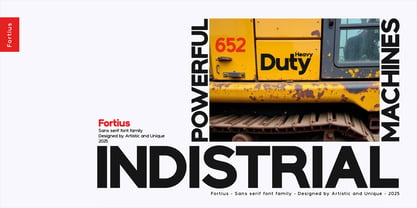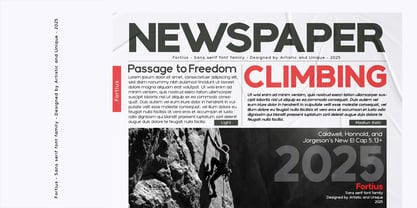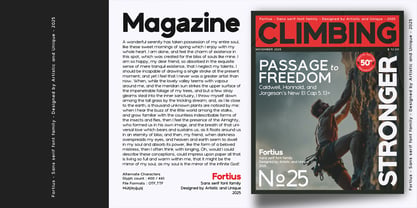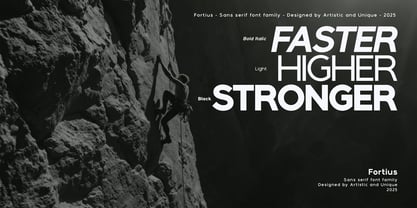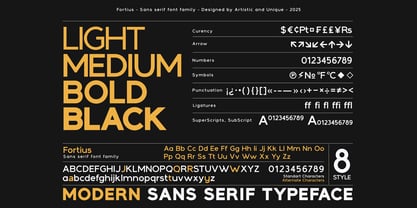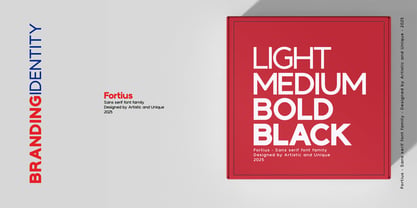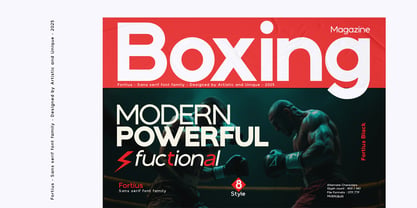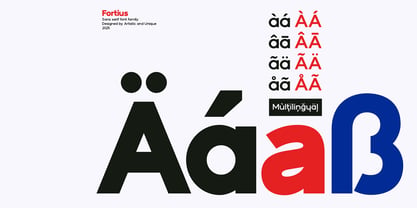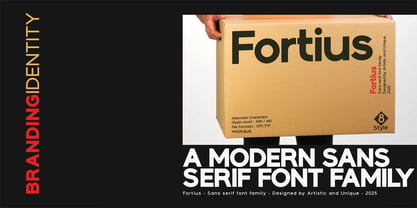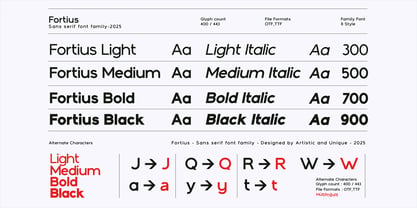
Fortius
The Fortius Font Family was designed by Osman Taner Kucukgenc and published by Artisticandunique. Fortius contains 8 styles and family package options. More about this family
Fortius - Sans serif font family - 8 Style - Multilingual supports.
With its clean structure and modern appeal, Fortius is proving to be indispensable for those looking for a sans serif font that enhances their branding efforts. Its adaptability means you can effortlessly integrate it into projects ranging from digital platforms to print.
For designers looking for elegance with versatility, the Fortius Sans Serif font family offers a wealth of options. With eight different styles and resolute readability, this font excels in contemporary creative projects.
The family ranges from delicate light the bold and black weights, making it suitable for a variety of design needs. Its multilingual support and modern design add to its timeless appeal. Lighter styles suit sophisticated projects, while thicker weights stand out in headlines.
Features
• Extensive Character Set - Includes uppercase, lowercase, punctuation, symbols, and numbers.
• Extended Design Flexibility - Offers multiple weights and styles.
• Multilingual Support - Perfect to global projects.
Ideal for books, magazines, newspapers, editorials, headlines, websites, logos, branding, and more, the forties font family offers a harmonious blend of modern and classic aesthetics, allowing you to easily create unique designs.